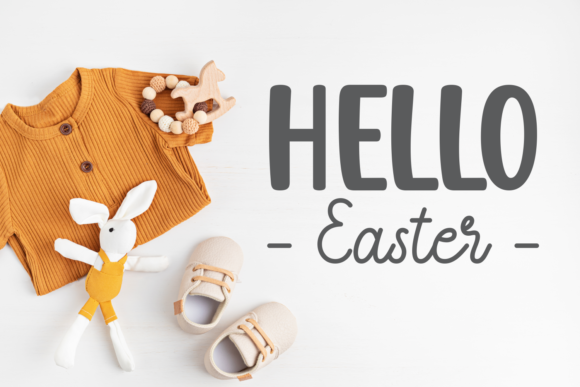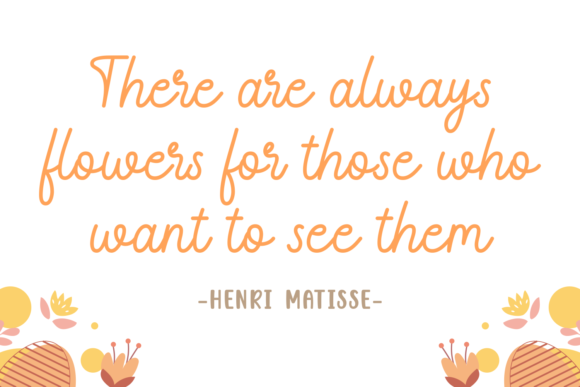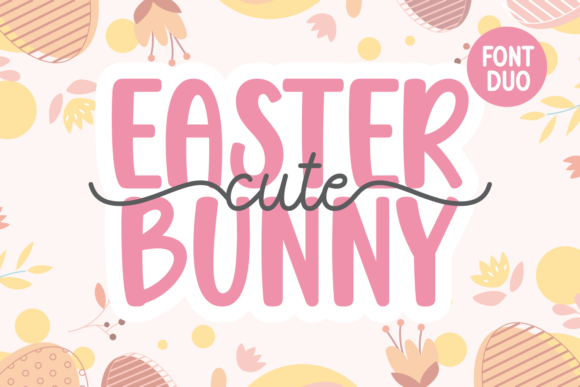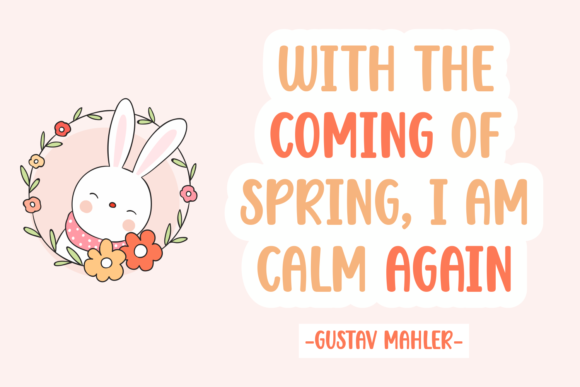
Cute Easter Bunny Font
About the Cute Easter Bunny Font
Discover the charm of Cute Easter Bunny Font. This font is a perfect blend of modern aesthetics and classic appeal. Cute Easter Bunny is a lovely duo font (script and sans serif). Add it confidently to your projects, and you will love the results.
Cute Easter Bunny excels in projects requiring a playful and friendly aesthetic. It’s ideal for branding elements like logos for children’s products, Easter-themed designs, invitations, and short headlines on social media posts or marketing materials. However, its decorative nature makes it unsuitable for body text or extended reading. Avoid using it for UI elements or long paragraphs where readability is paramount.
Pair the script font with a clean sans-serif like Open Sans for a balanced contrast, or a geometric sans-serif like Futura for a more modern feel. The sans-serif component pairs well with playful display fonts, such as Bubblegum Sans, or even a more restrained serif like Merriweather for a touch of sophistication when paired with the script.
The overall personality is undeniably cheerful and lighthearted, making it a perfect choice for projects targeting a young or family-oriented audience.
Cute Easter Bunny Font Usage Examples
Cute Easter Bunny Font Example